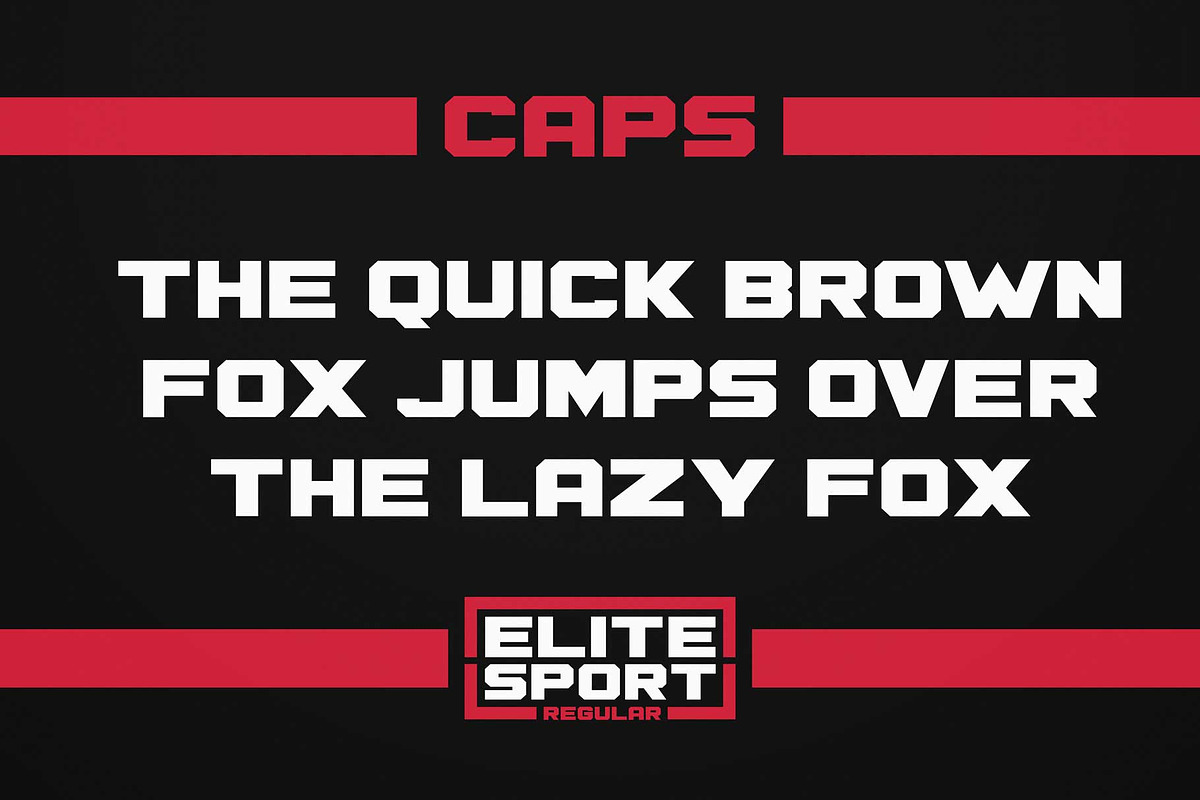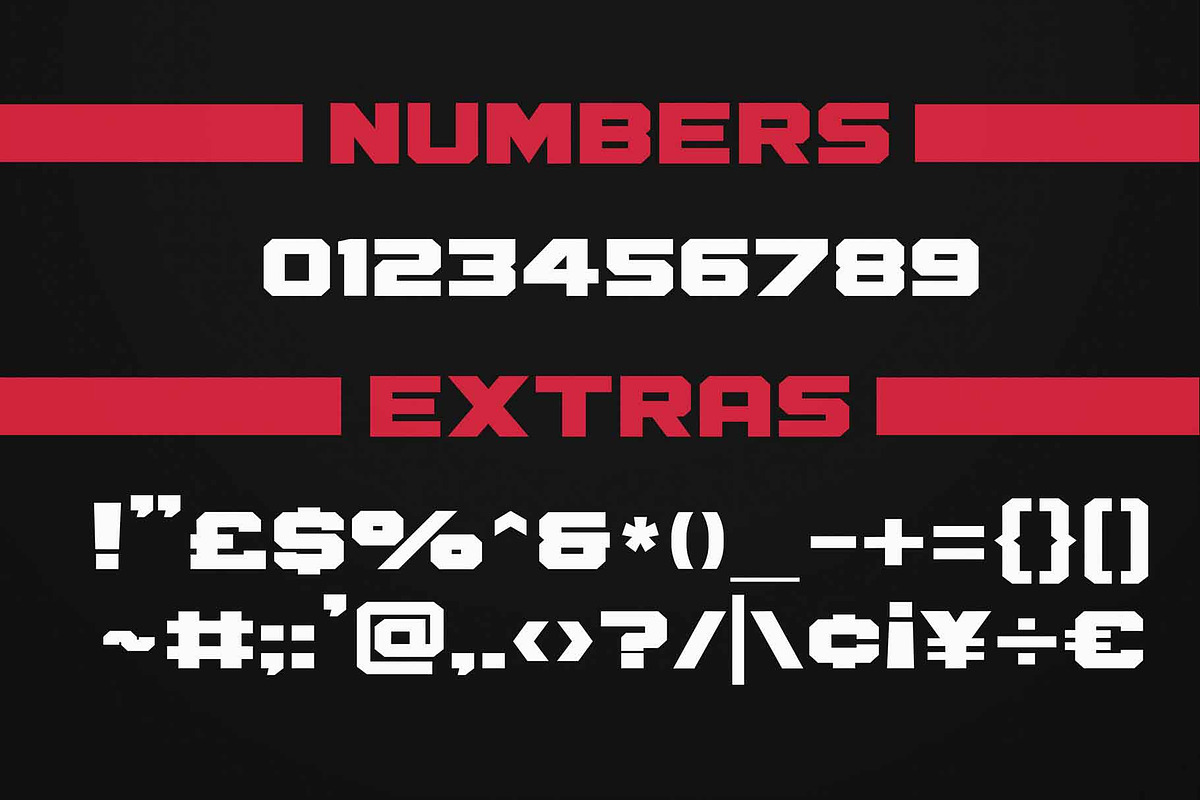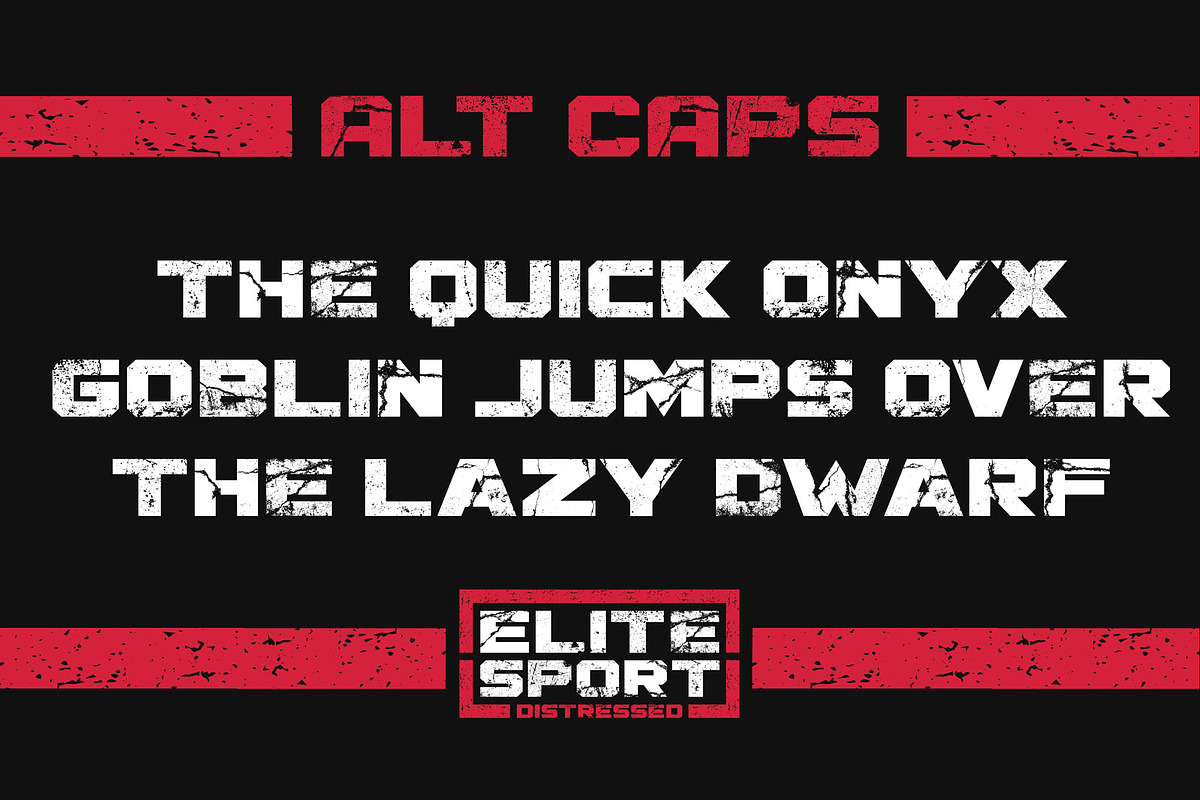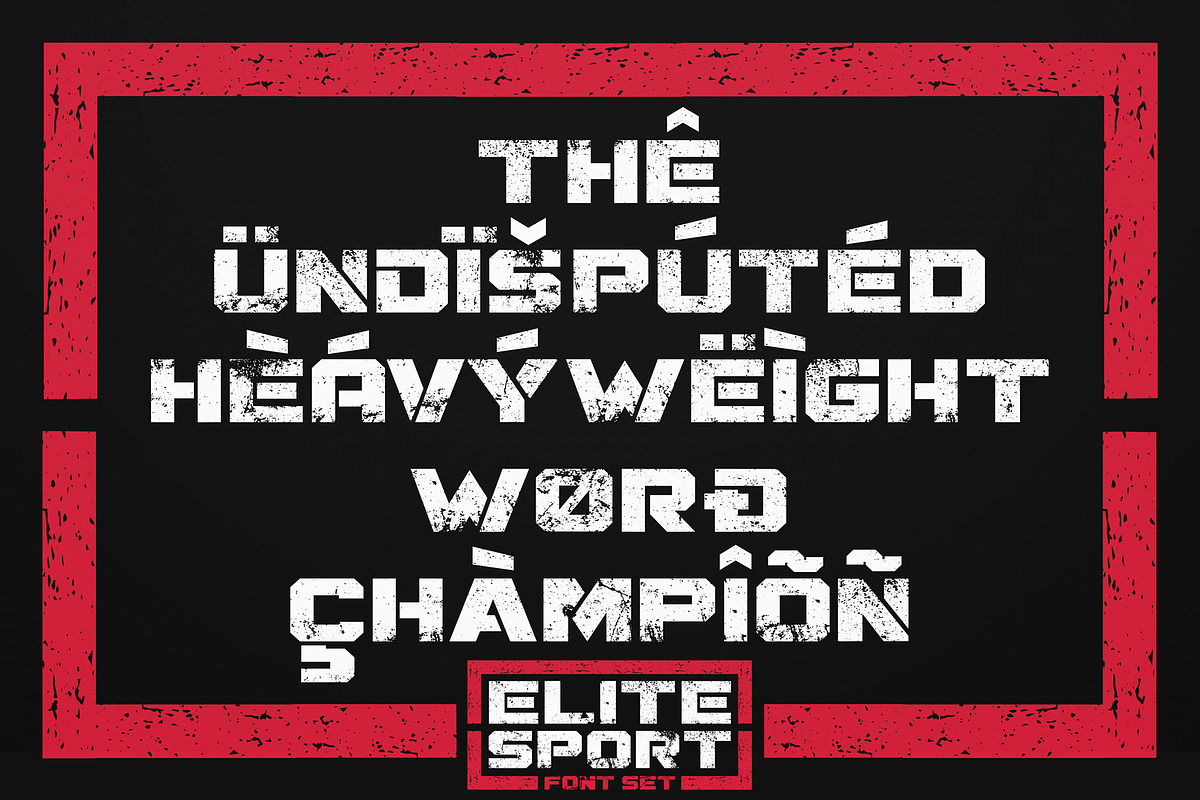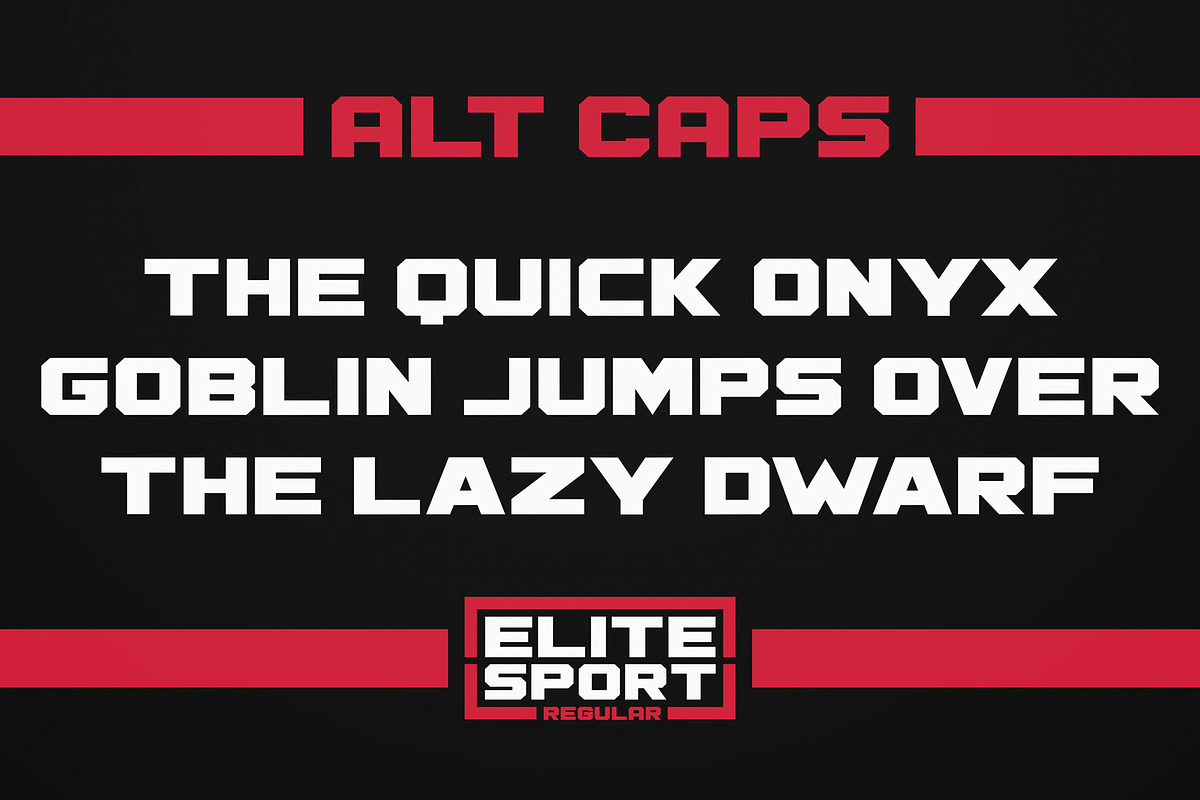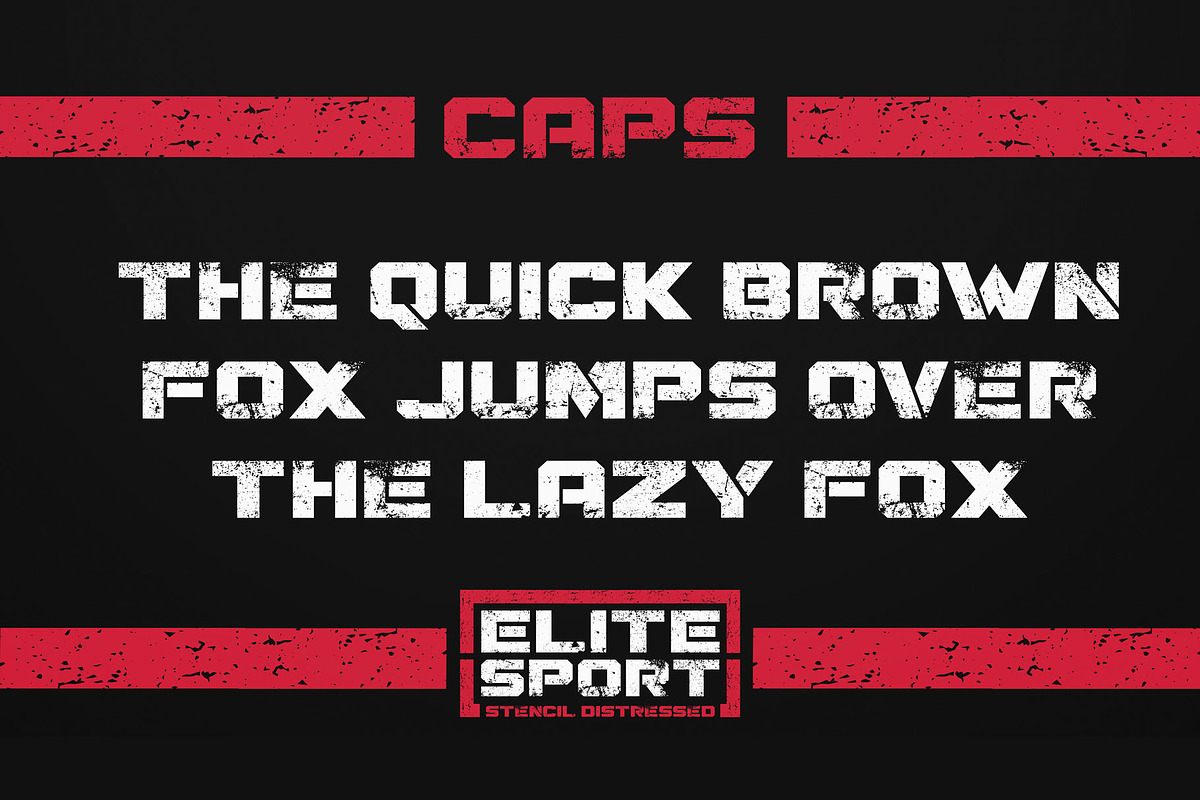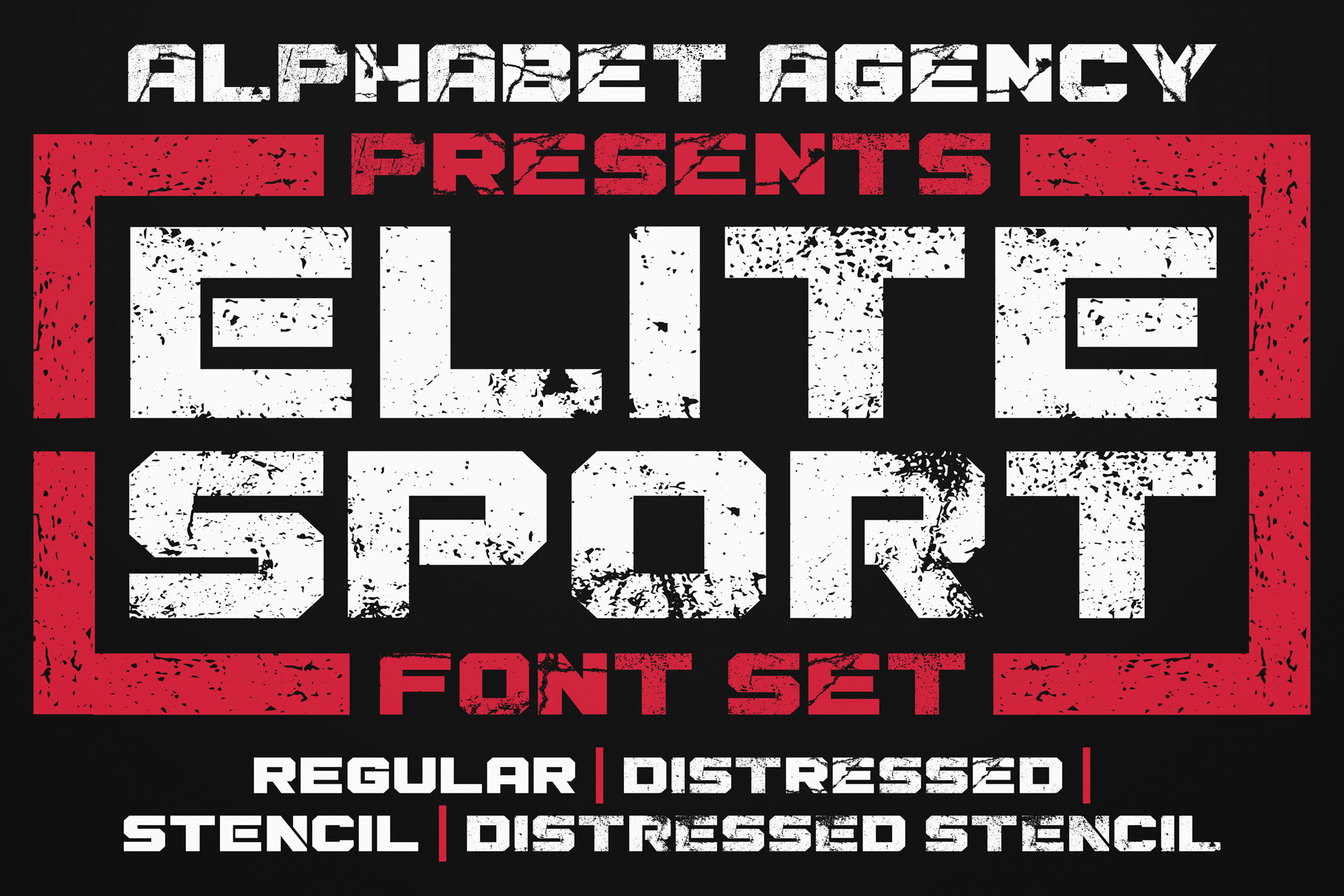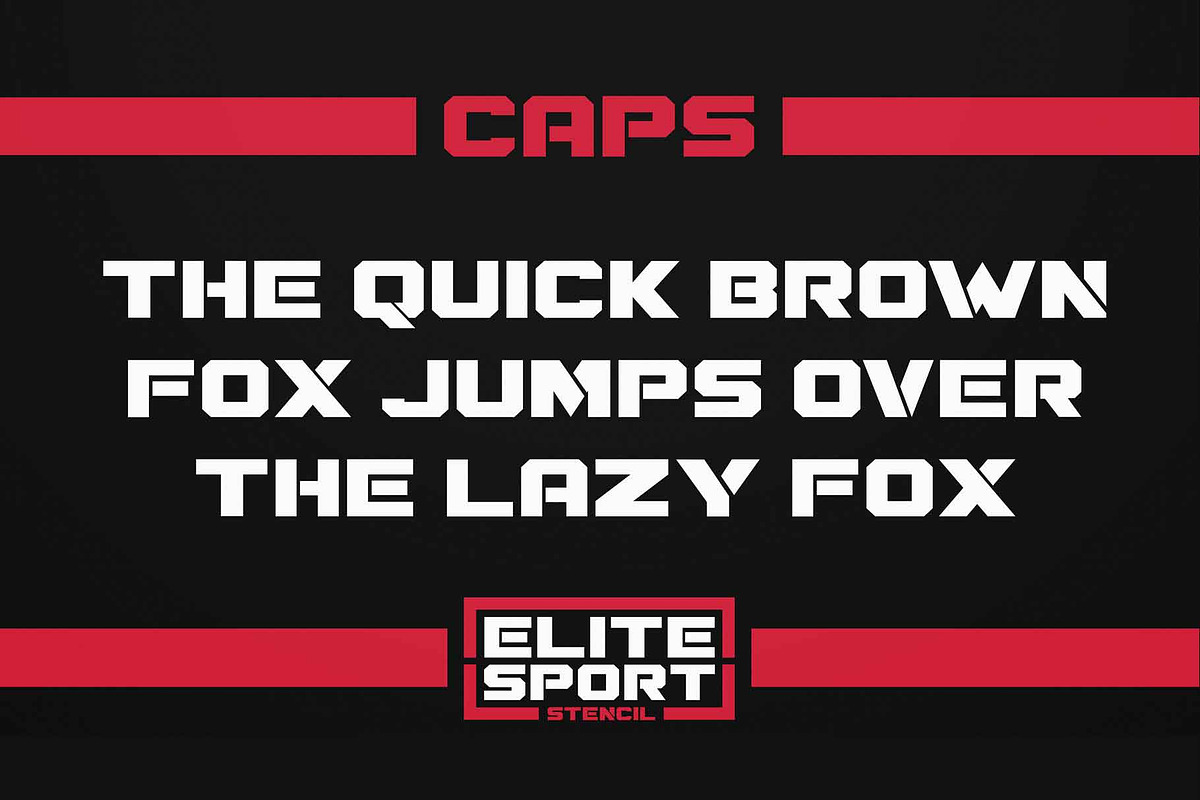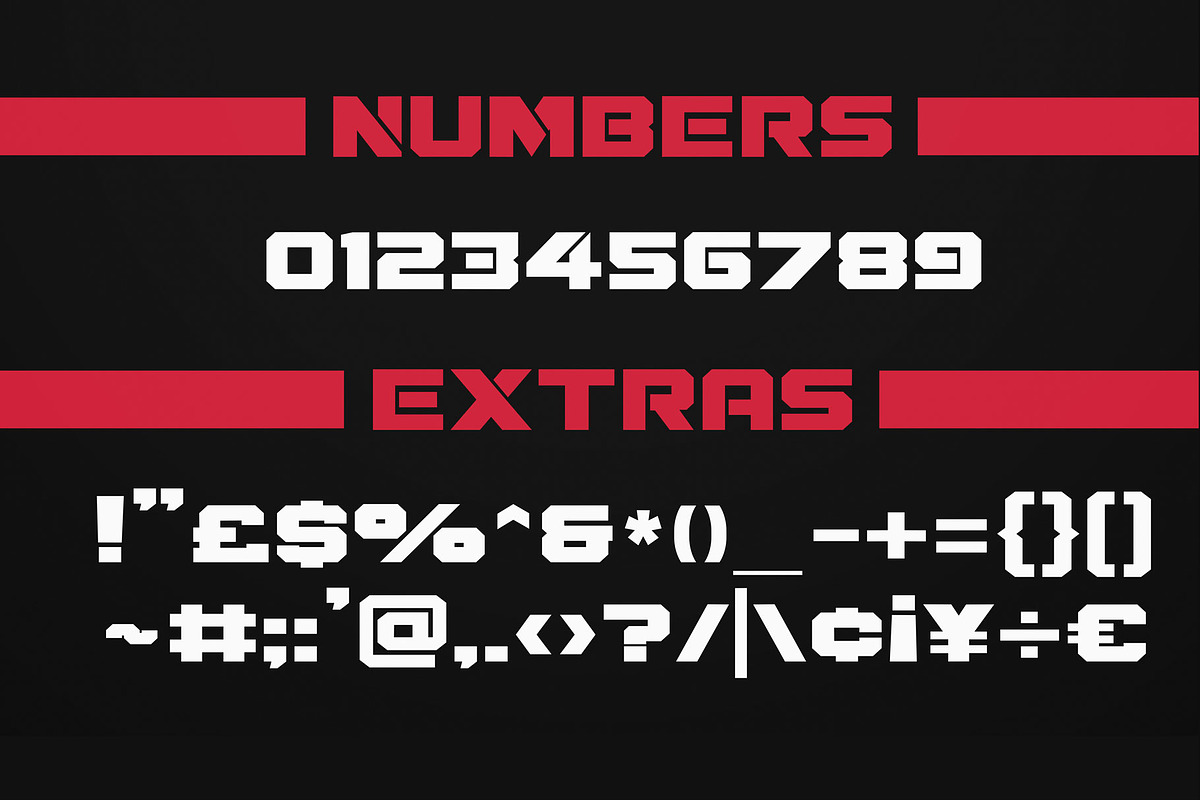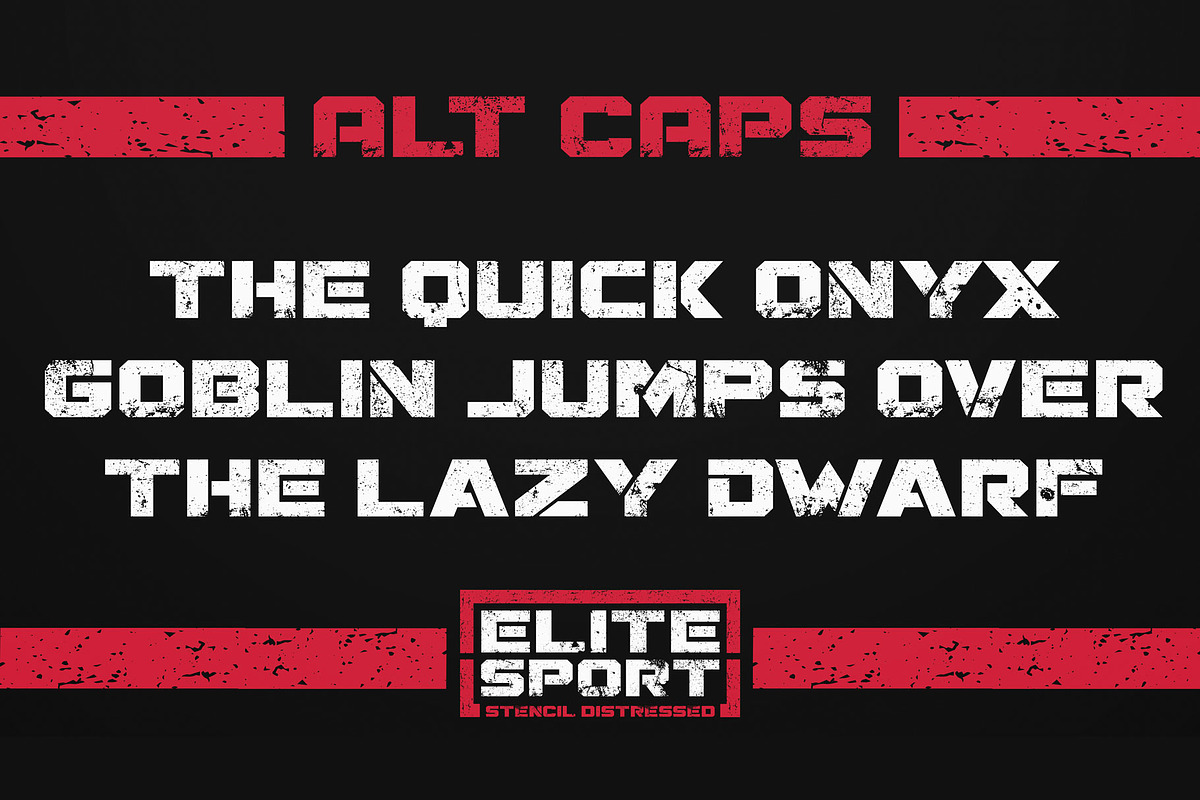
ELITE SPORT FONT SET
Elite Sport Font Set include 4 all caps: Elite Sport Regular, Elite Sport Stencil, Elite Sport Distressed and Elite Sport Stencil Distressed.
Each font contains 2 versions of Latin capital letters, numbers and a variety of useful extras.
This is great sans serif font for use in bold eye-catching designs.